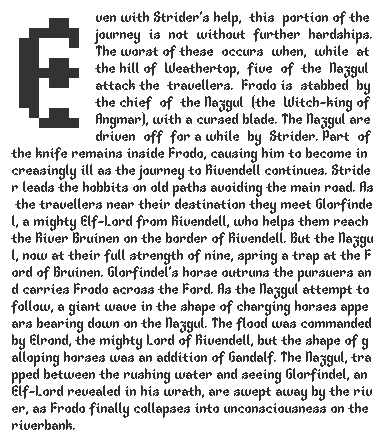
• A pixel font with a little Blackletter touch. Best at pixel view.
Is this a pixel font? Can't be! Astounding ingenuity.
it comes from the archives' directory in theshire_db :)
Excellent work frodo7.
Wow!
Thank you very much for your nice comments. Honestly, I never thought this could be a big deal. It's a pixel font I've made yesterday during a long telephone conversation. But I'm glad you like it. Maybe I should add some special characters and ligatures.
great stuff. you say you did this during a long phone call? well. and well done. amazing that your brain could do this while engaged in a conversation. many questions, but i won't ask :)
I see that dot... just give Gustavo a few moments to fish it out of the pinkpool...
Incredible - and during a 'phone call. Multitasking at its best :)